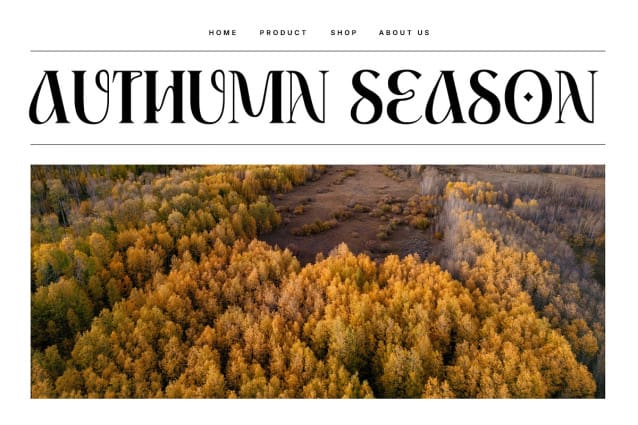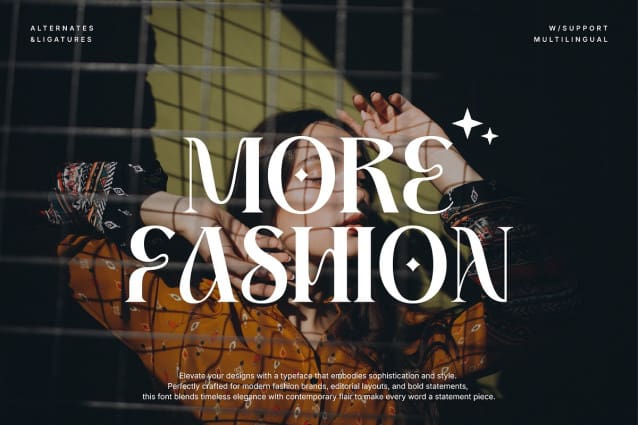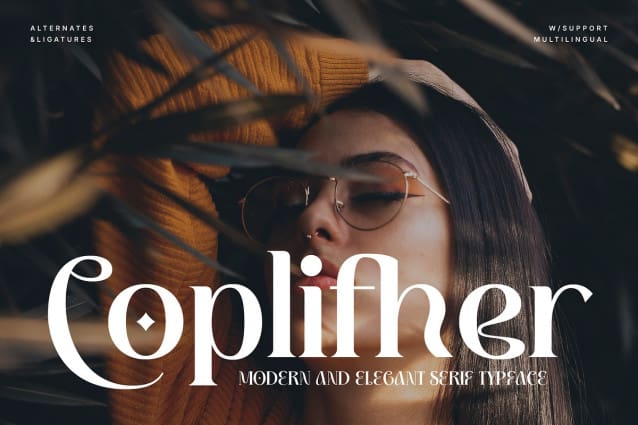
Coplifher Font
Coplifher Font – A Stylish Retro Font. This font can look more retro (conservative) serif, which is perfect for texts. So same he can be more expressive, playing and more modern with alternative substitutes and ligatures. Try to play with them and you will get the uniqueness in your project